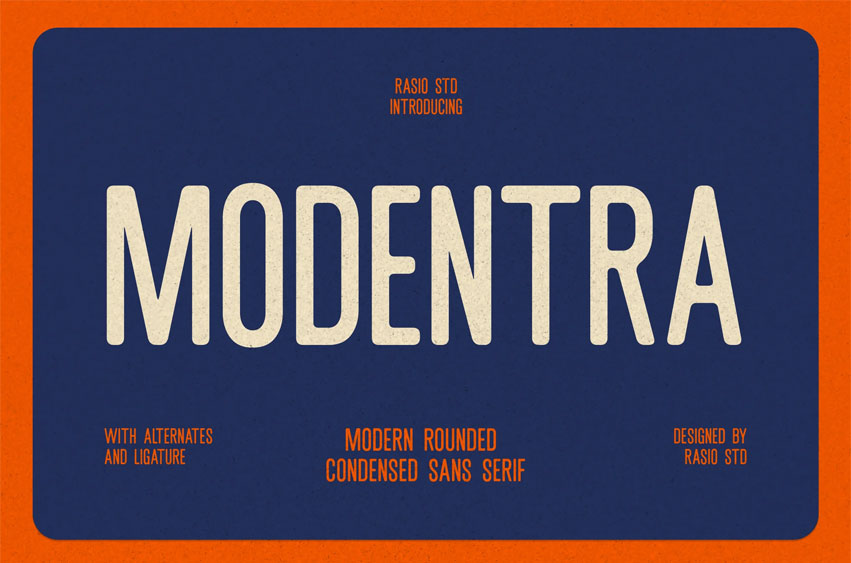
Modentra Font is a modern, rounded, condensed sans serif font with a clean yet bold presence. Its tall and narrow letterforms make it perfect for strong headlines, branding, logos, and corporate identity. Designed with smooth, rounded edges, Modentra combines a modern minimalist style with professional readability. It supports alternates and ligatures, making it flexible for editorial design, posters, packaging, and tech-inspired branding. Whether for automotive, sports, or luxury projects, Modentra offers a versatile sans serif look with a premium touch.
Relevance and Use Cases Perfect for modern branding, corporate identity, automotive design, technology logos, editorial headlines, sports graphics, minimalist posters, premium packaging, startup presentations, professional signage, and luxury brand projects.